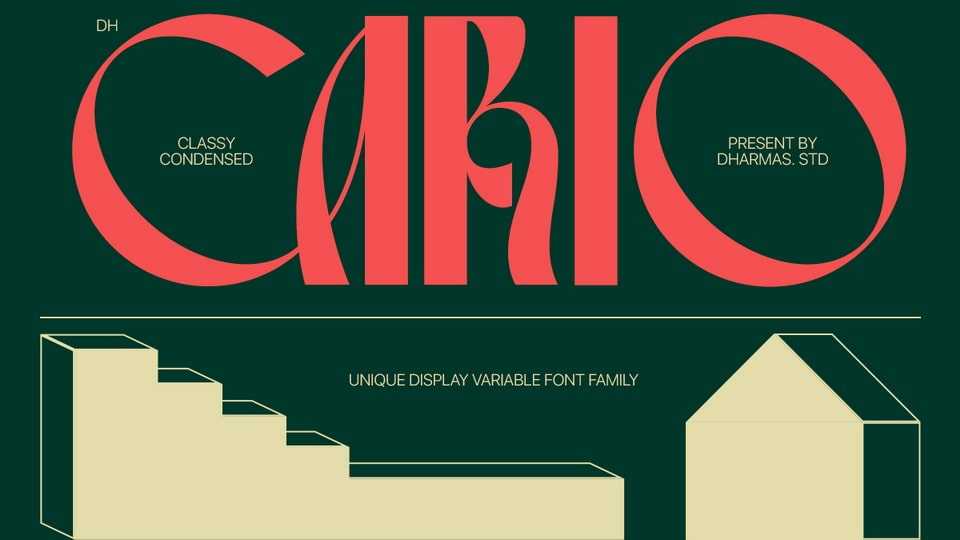
Download Dh Cario font, a display variable typeface, the perfect choice for creating elegant and impactful designs that adds a modern and captivating touch to any project.